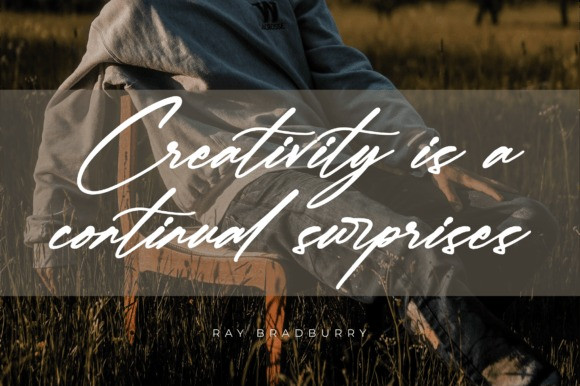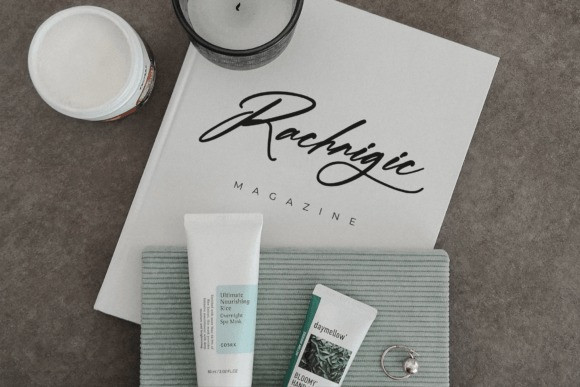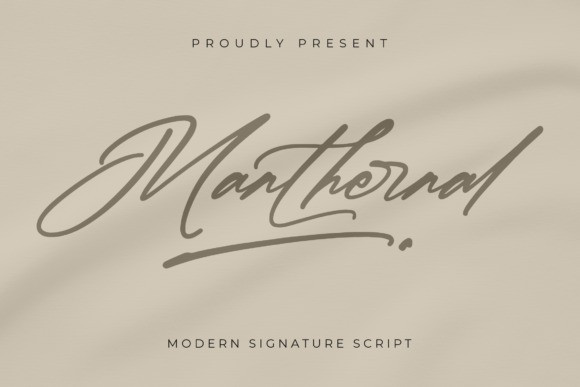
Manthernal Script Font
Manthernal Script Font, is a modern script font, perfect for a variety of projects such as logos, branding projects, homeware designs, product packaging, mugs, quotes, posters, shopping bags, t-shirts, book covers, name card, invitation cards, greeting cards, label, photography, watermark, special events, and all your other lovely projects that need a beautiful script taste.